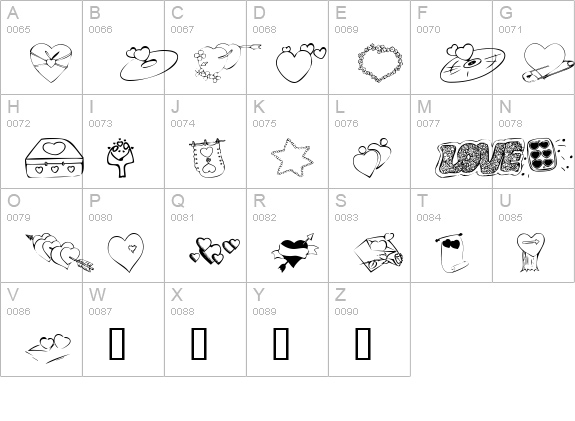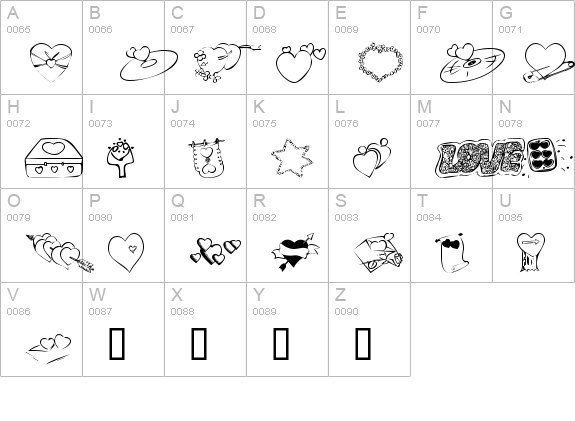
KR Valentines 2006 Seven Font Details
KR Valentines 2006 Seven font is a charming and playful typeface perfect for adding a touch of love to your designs. With its whimsical and decorative style, this font is ideal for Valentine's Day projects, wedding invitations, greeting cards, and more. The delicate swirls and heart accents make it a delightful choice for conveying messages of affection and romance. Best of all, KR Valentines 2006 Seven font is available for free download at FontsMarket.com. Whether you're a designer looking to add a special touch to your creations or someone wanting to add a personal flair to your messages, this font is a wonderful choice. Spread the love with this lovely and freely accessible font today!